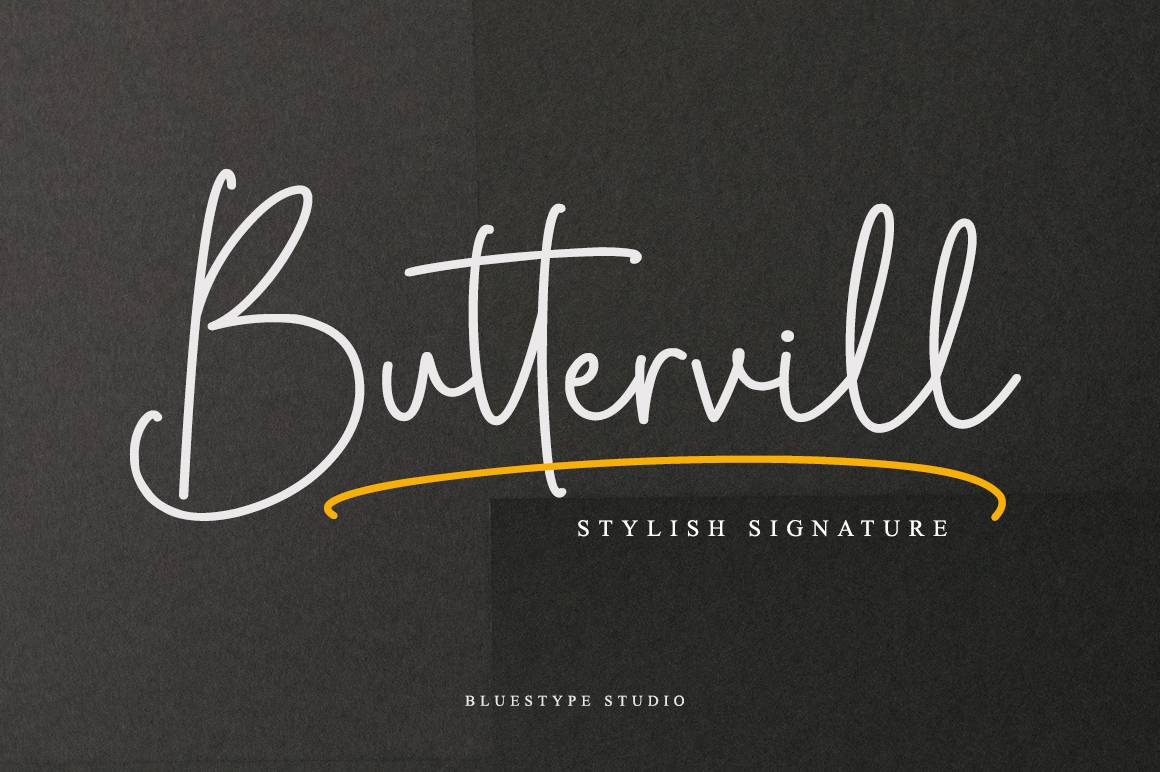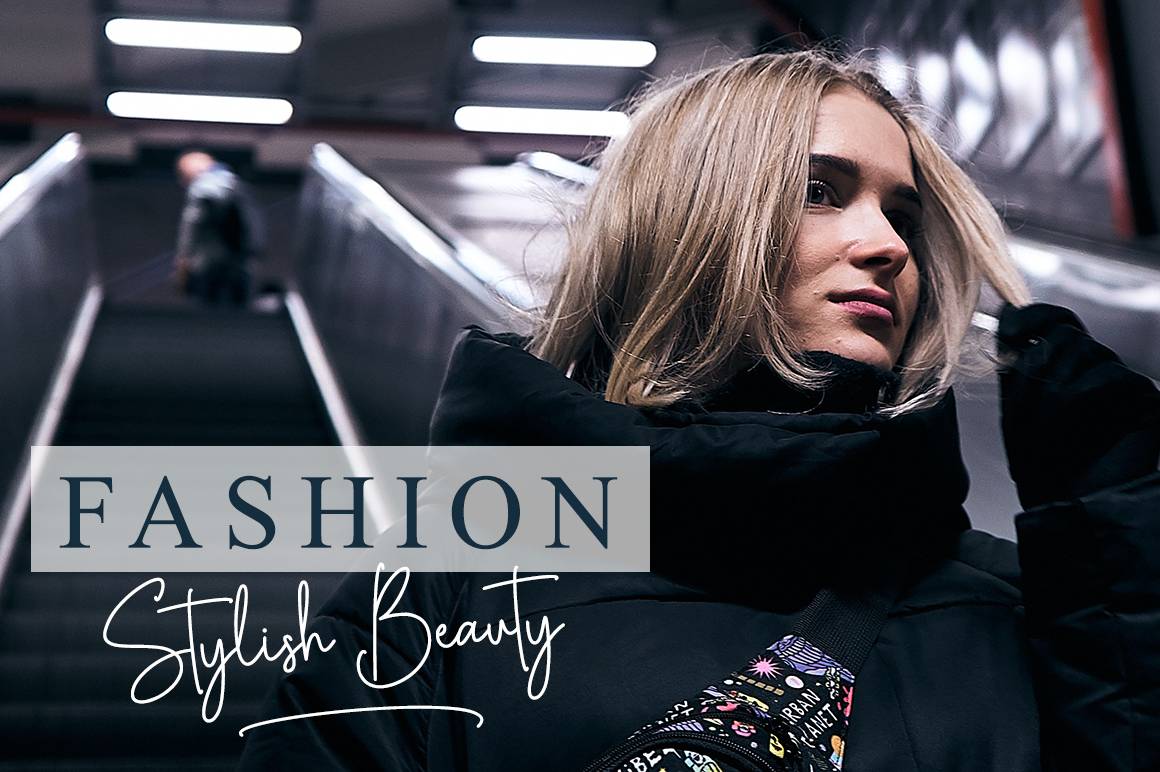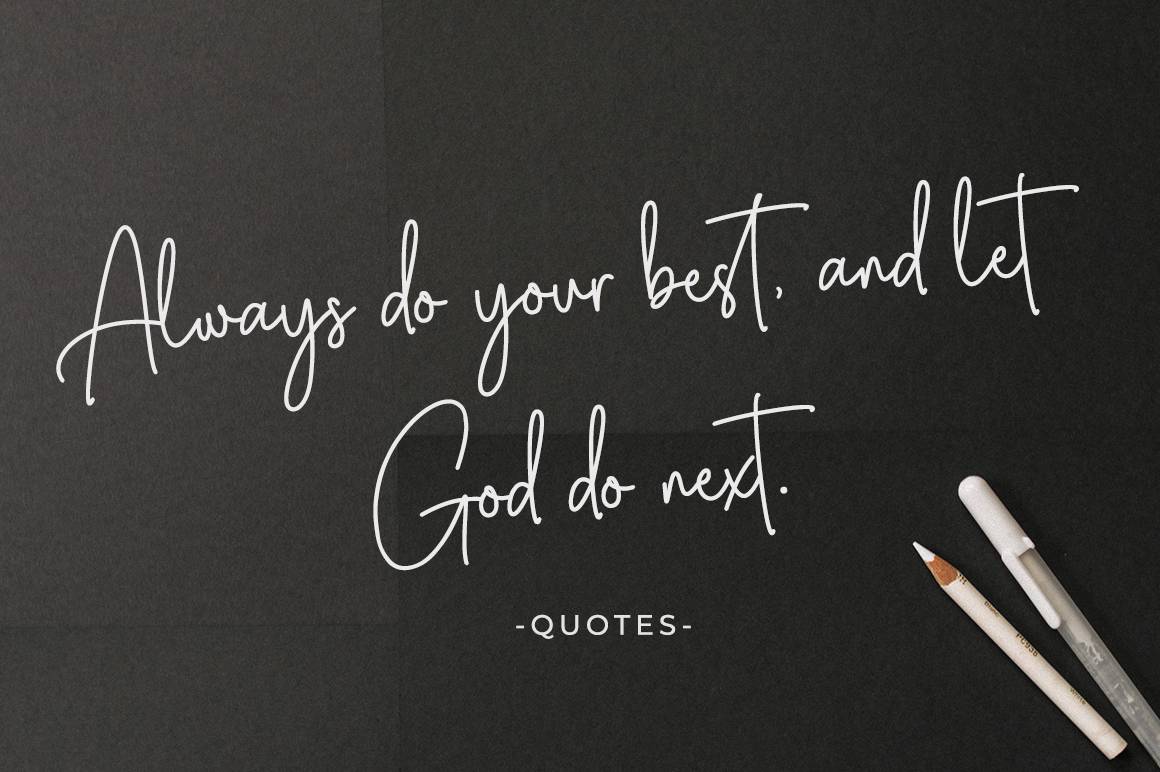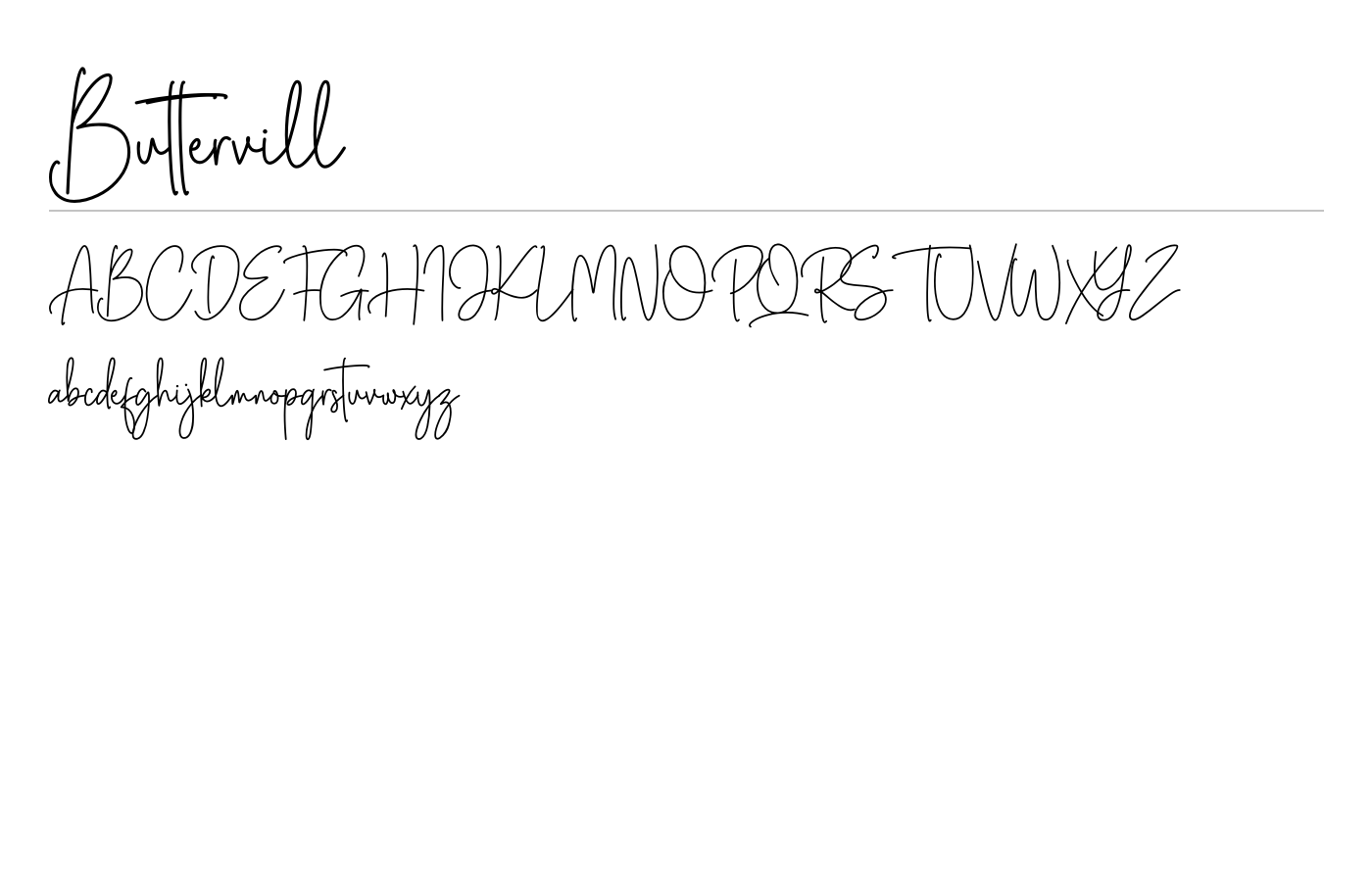
Buttervill is a delicate, handwritten script font characterized by its tall, slender letterforms and elegant, flowing strokes. Its thin, airy lines and playful loops give it a personal, charming feel ideal for creative branding, invitations, and expressive headlines where a touch of sophistication meets casual style. This font works well to convey warmth and individuality in modern, feminine, or artistic design projects.
Buttervill Font
About Buttervill Font
| Font family | Buttervill Font |